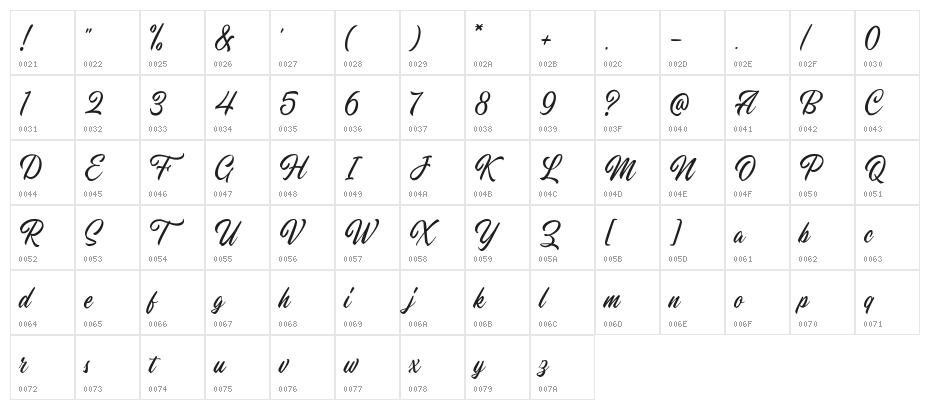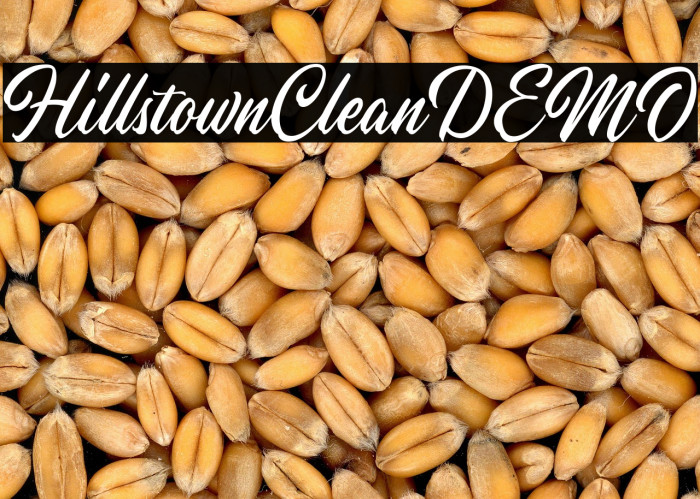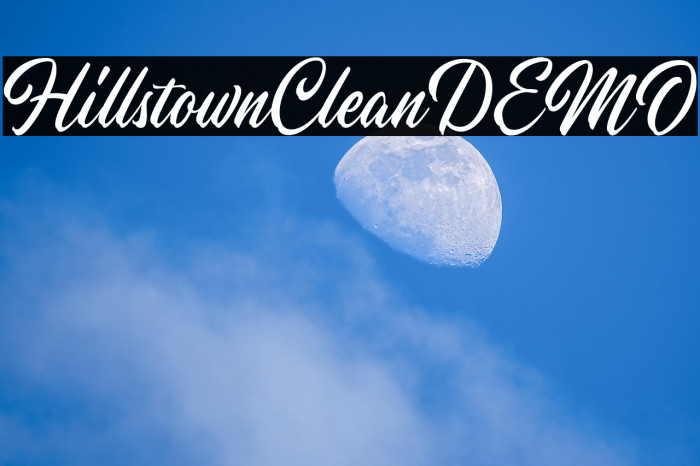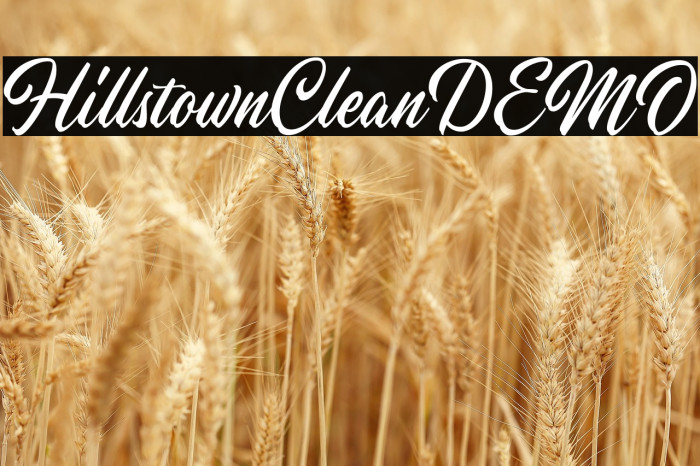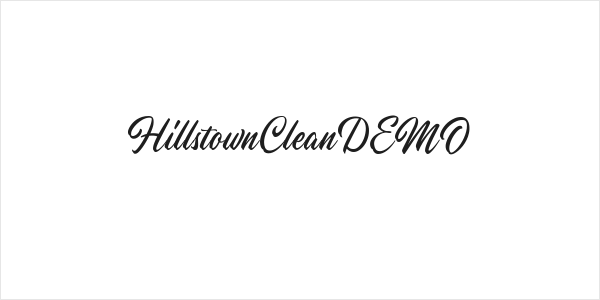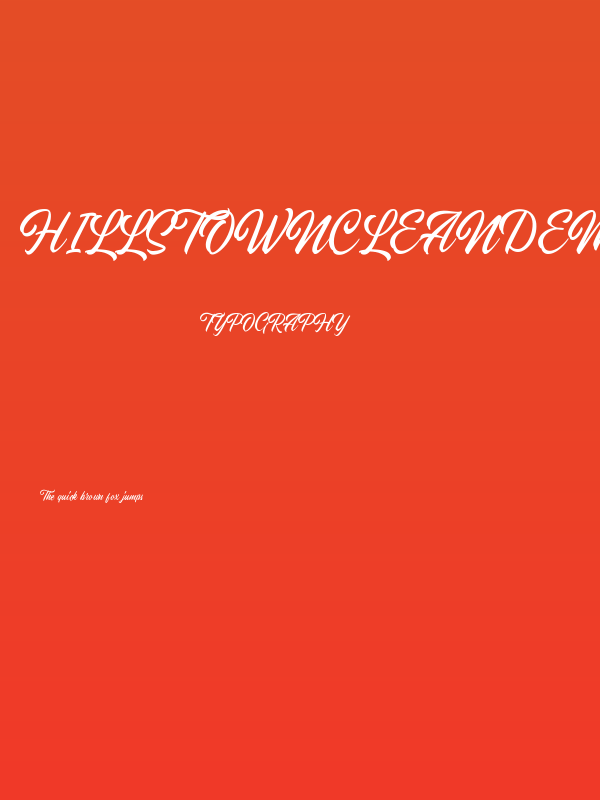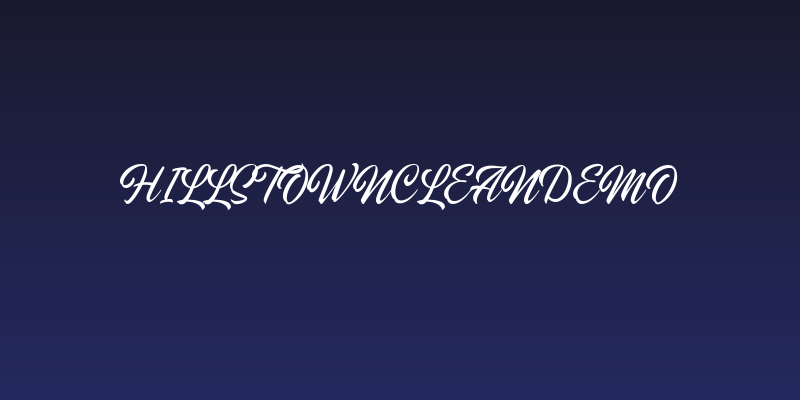
HillstownCleanDEMO Font
HillstownCleanDEMO Description
This elegant script font features flowing, cursive letters with a classic and sophisticated appearance. The uppercase letters are bold and sweeping, with intricate loops and flourishes that add a touch of formality. The lowercase letters maintain a consistent style, offering a smooth and connected look that enhances readability. Numbers and special characters are designed to match the overall aesthetic, providing a cohesive and polished appearance. The font's design is perfect for projects that require a touch of elegance and refinement.
Overall StyleClassic
Use CaseLogos, Invitations, Branding
Proposed ProjectsIdeal for wedding invitations, elegant branding, formal event programs, and luxury product packaging.